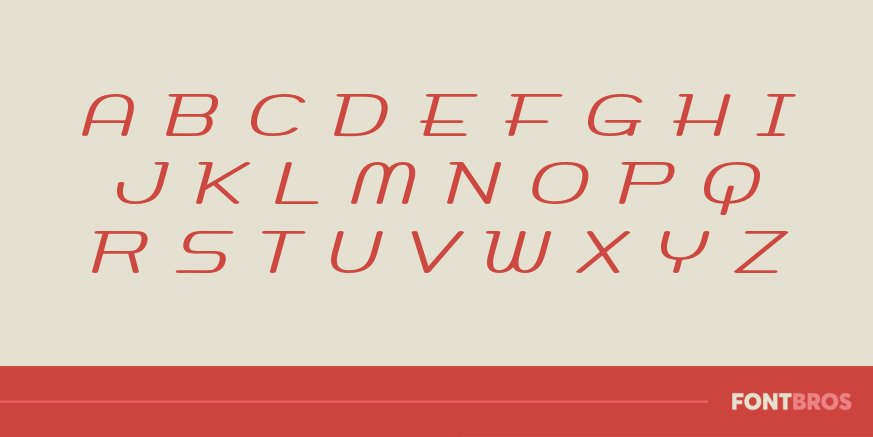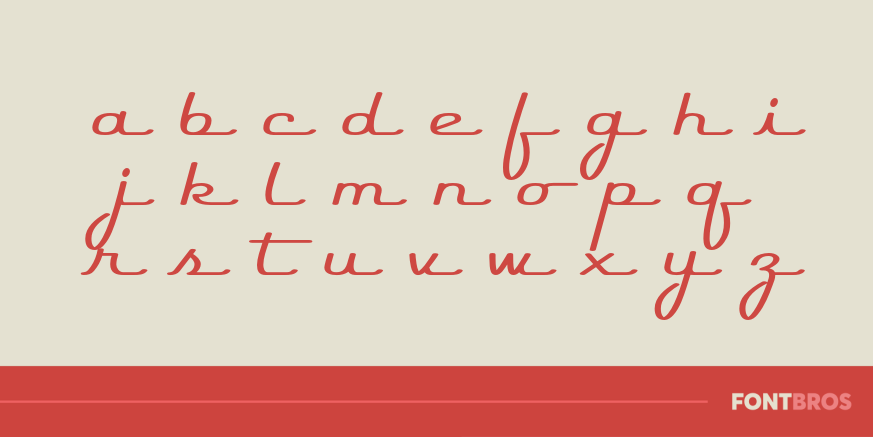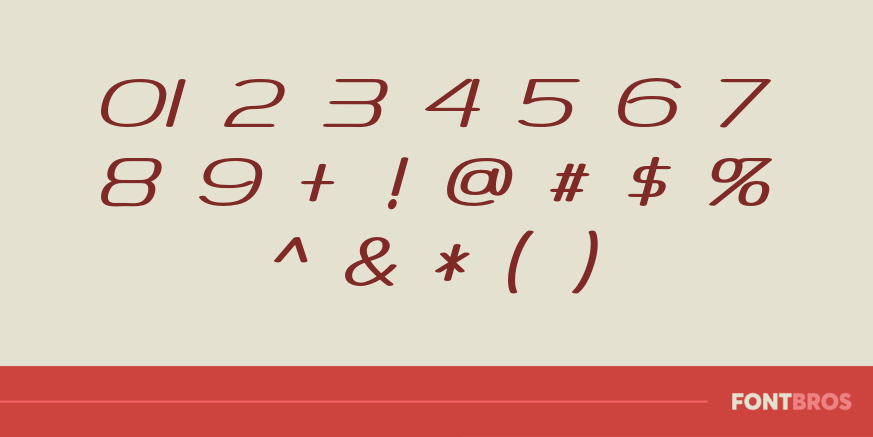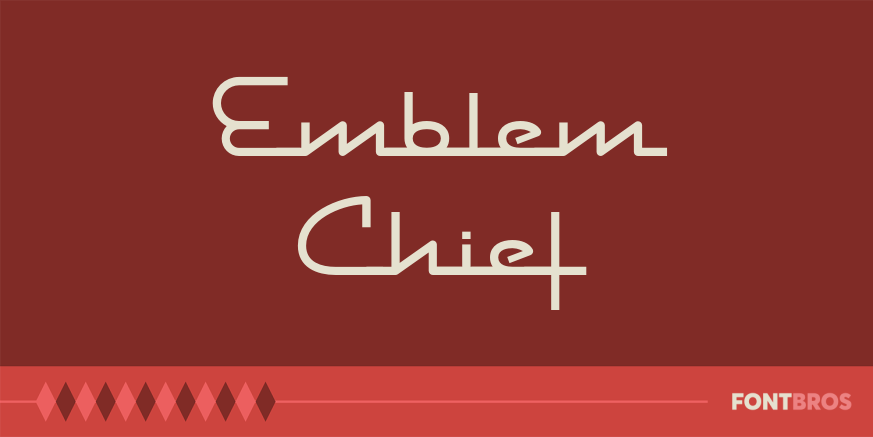
Rocket Script
Font Family by Font Diner
Rocket Script is a script font family from Font Diner with a distinctly retro feel, sitting comfortably between casual and formal script styling. Its flowing letterforms give it a lively, vintage personality that feels expressive without losing its polished edge.
With 1 font style in the family, this is a focused display choice for work that benefits from character and motion. It’s especially well suited to retro-inspired branding, poster design, packaging, signage, and other headline settings where a script look can bring warmth, nostalgia, and visual flair.